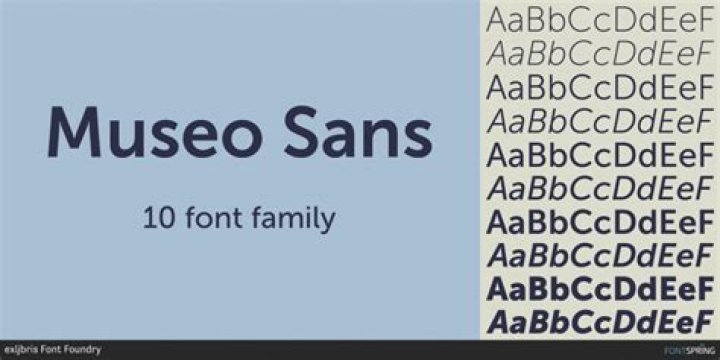
What is museo font?
Overview. Museo Sans is a full-featured, highly legible sans serif font family designed by Jos Buivenga. Museo Sans sports a familiar look and is based on the popular Museo serif typeface family. Museo Sans has a sturdy, low contrast, geometric design style that works well in both text and display sizes.
What font does Dell use?
Museo
We use Museo for Dell as our primary corporate typeface. This modern and approachable typeface helps us communicate ideas simply and confidently.
Who designed Museo Sans?
designer Jos Buivenga
Created by designer Jos Buivenga, Museo Sans is based on the popular typeface Museo.
What is the Museo family?
Museo is a remarkable semi-serif family with simple, open forms and highly original details. Jos Buivenga lives and works in Arnhem. He started designing type in 1994 and started his exljbris Font Foundry ten years later.